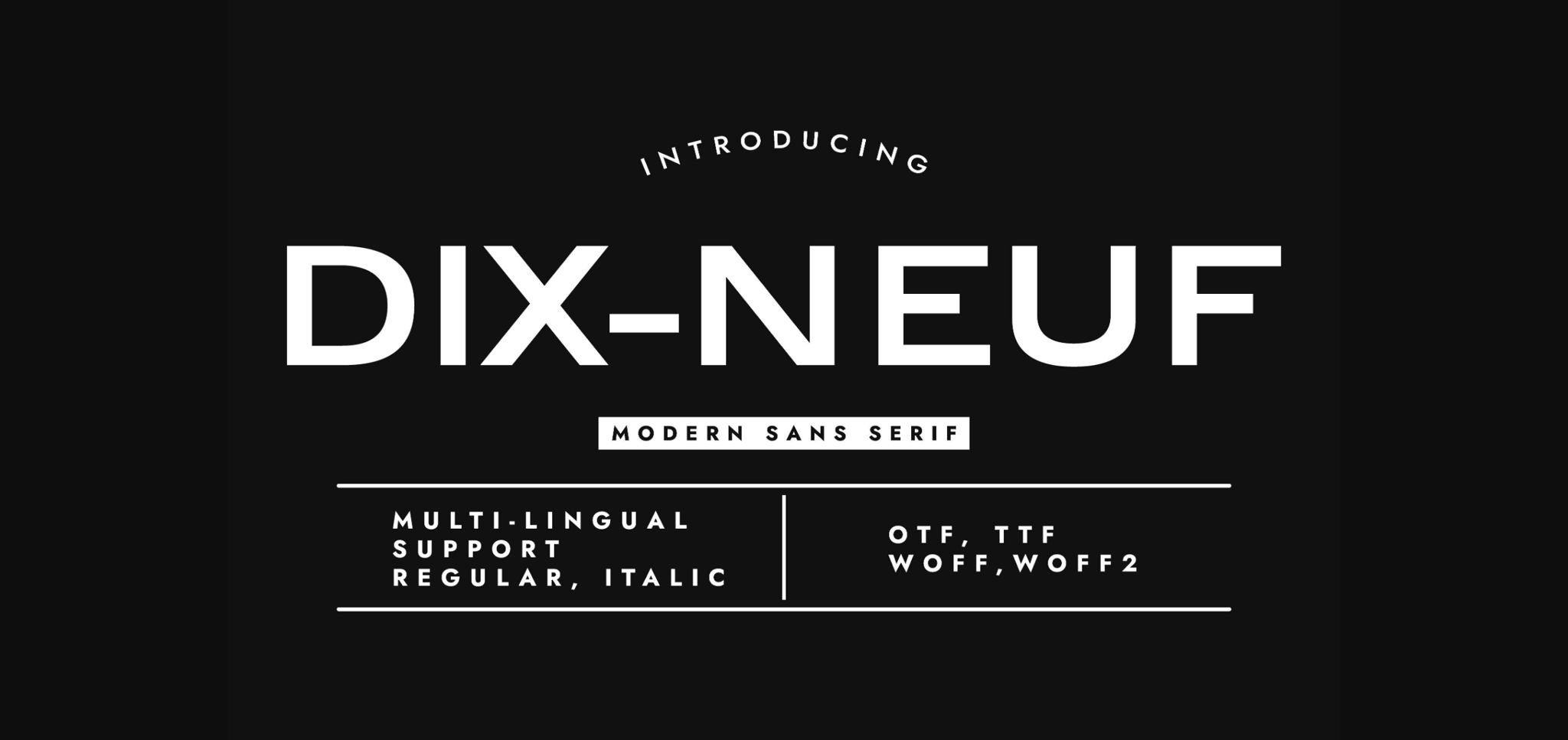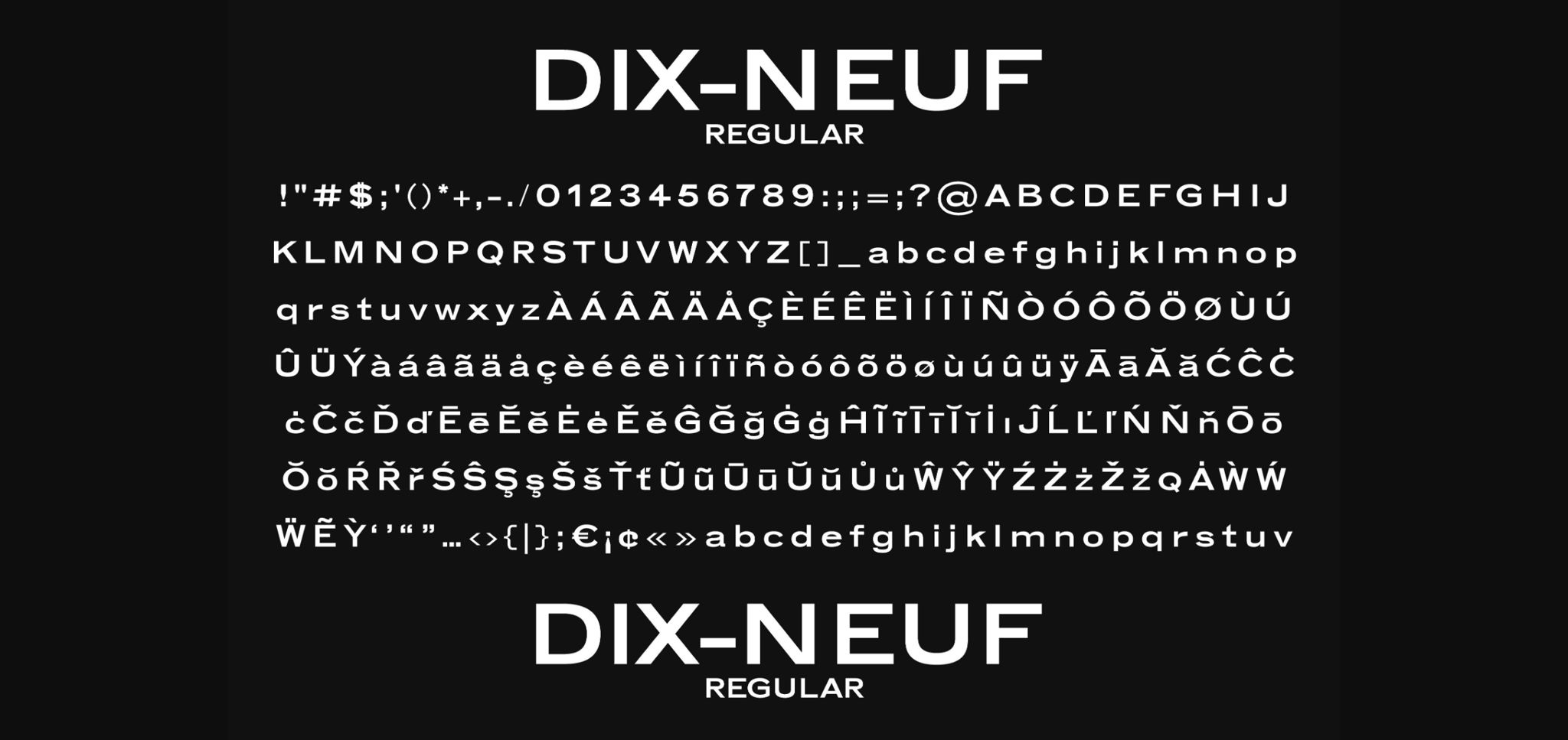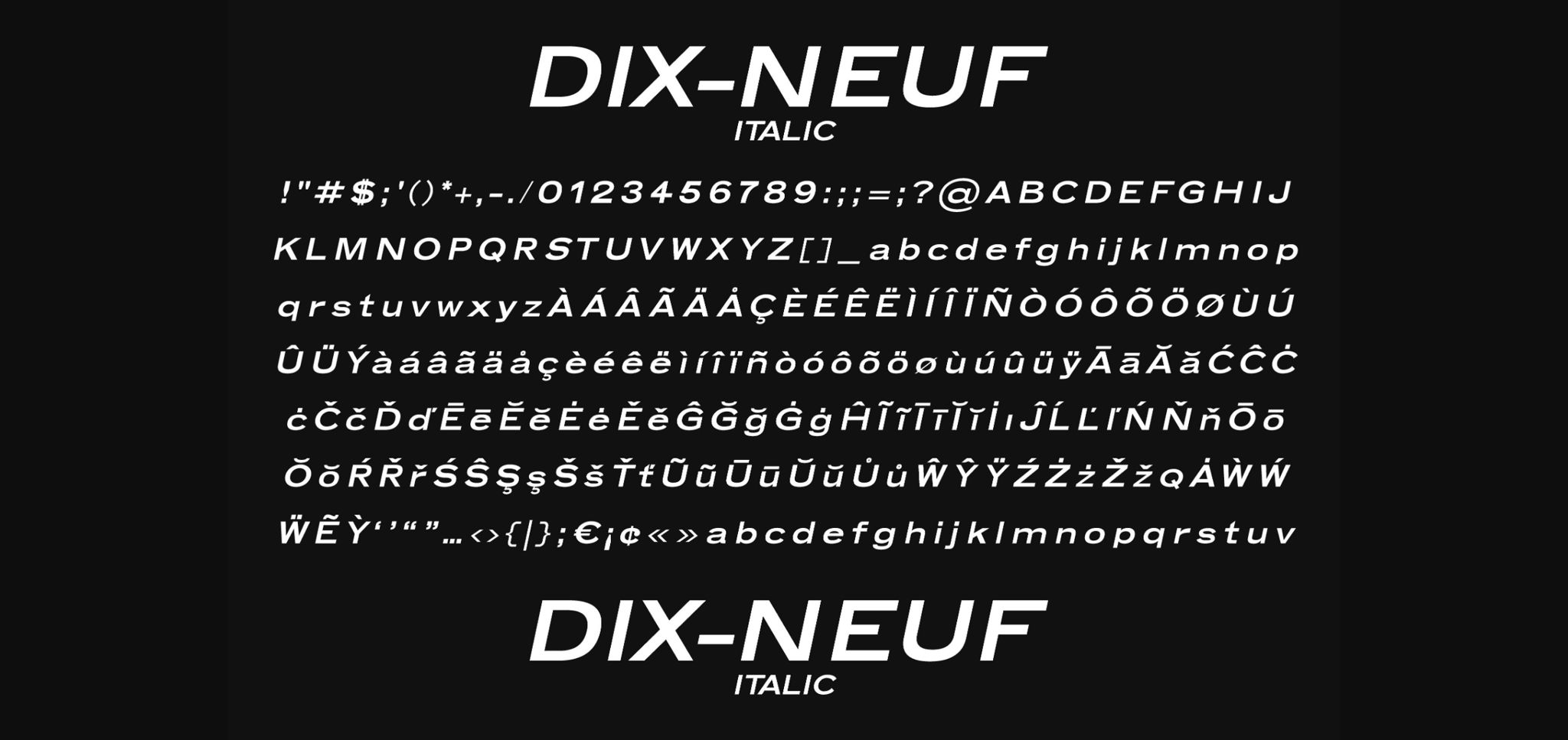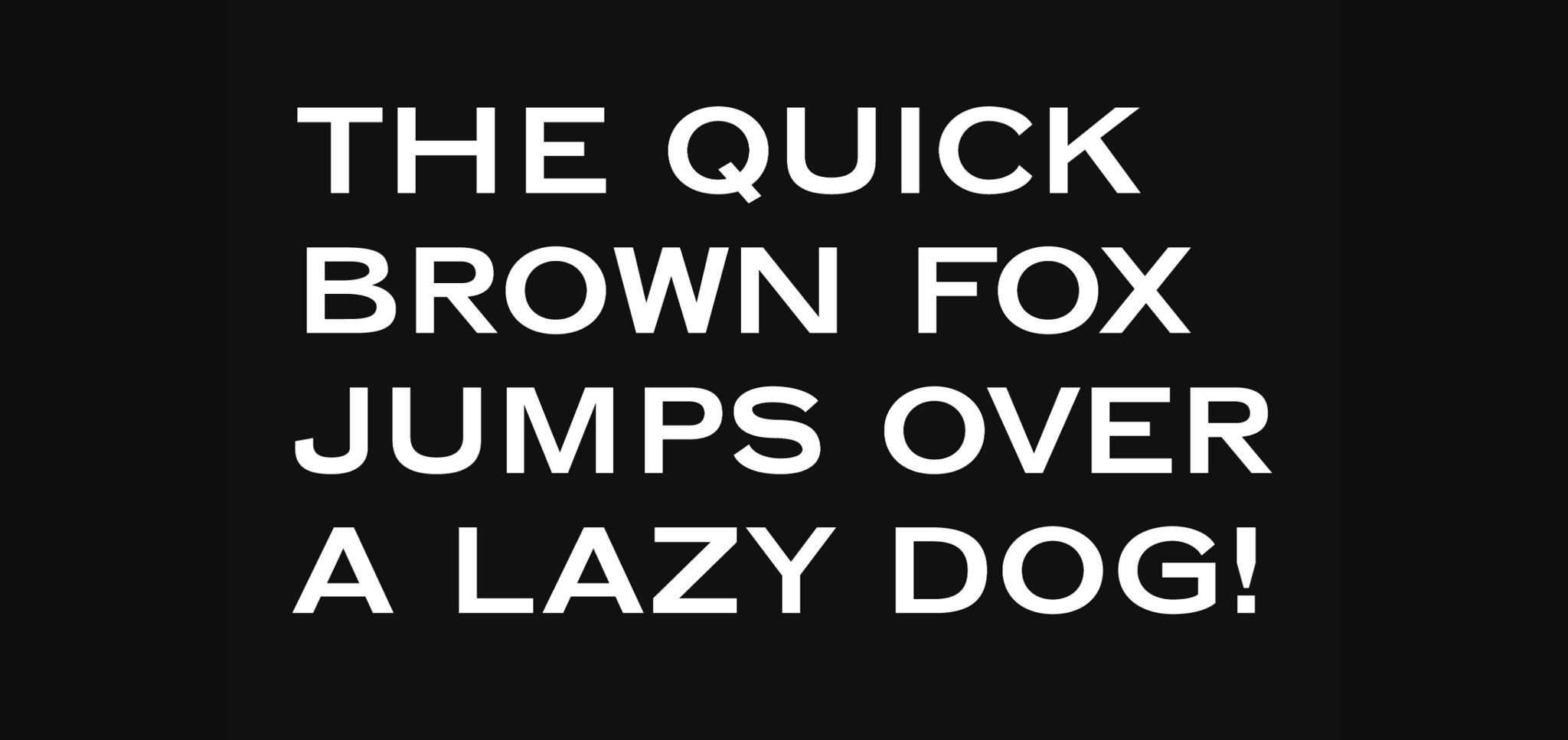
About Dix-neuf Font
Dix-Neuf is a cool, minimalist, and geometric sans serif typeface. Its versatility renders it a valid choice when you are creating logo designs, branding materials, packaging, social media posts, etc. Add it to your creations and notice how it makes them come alive!